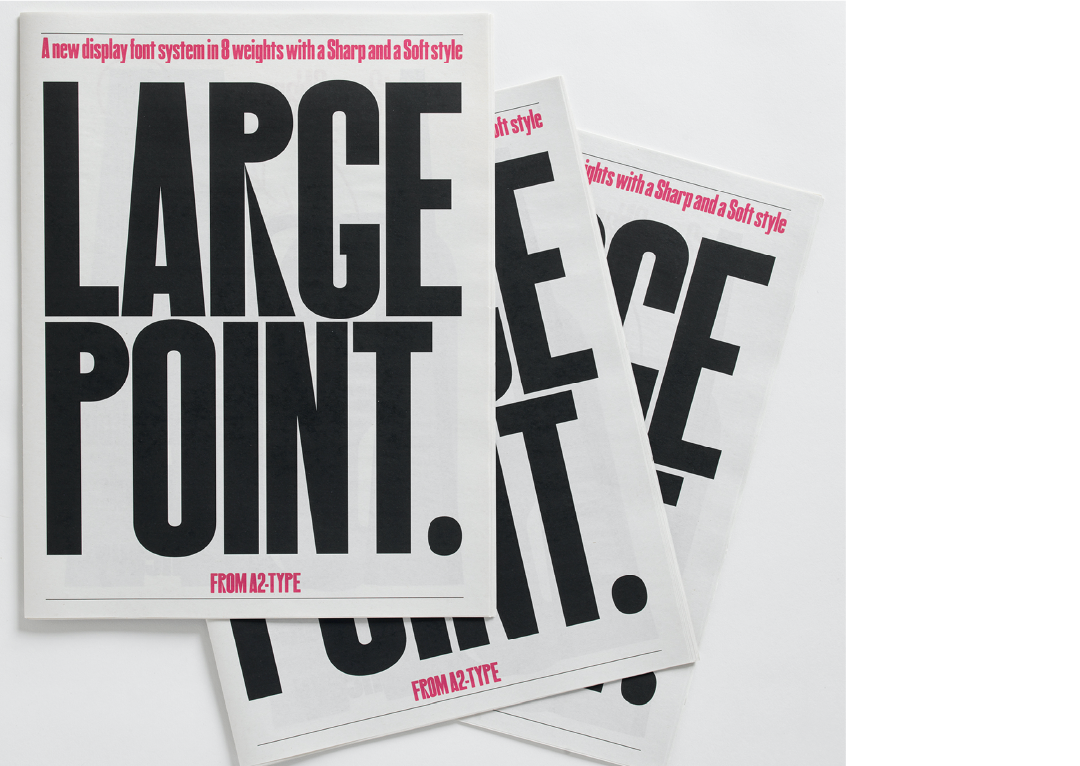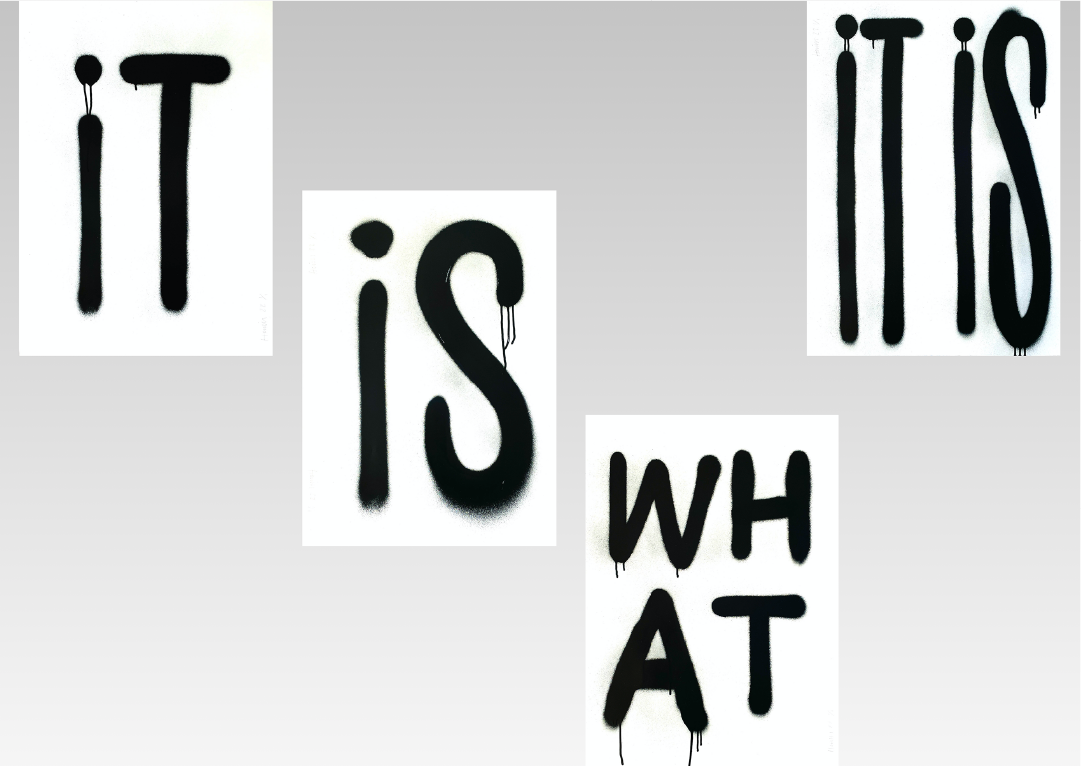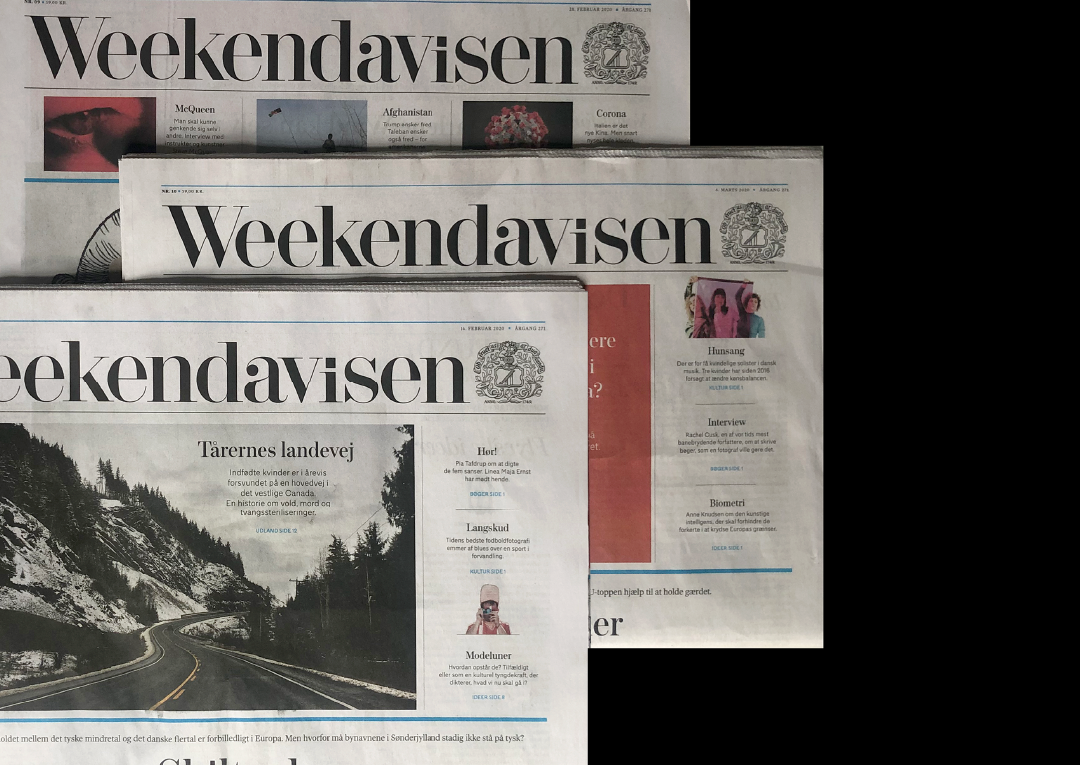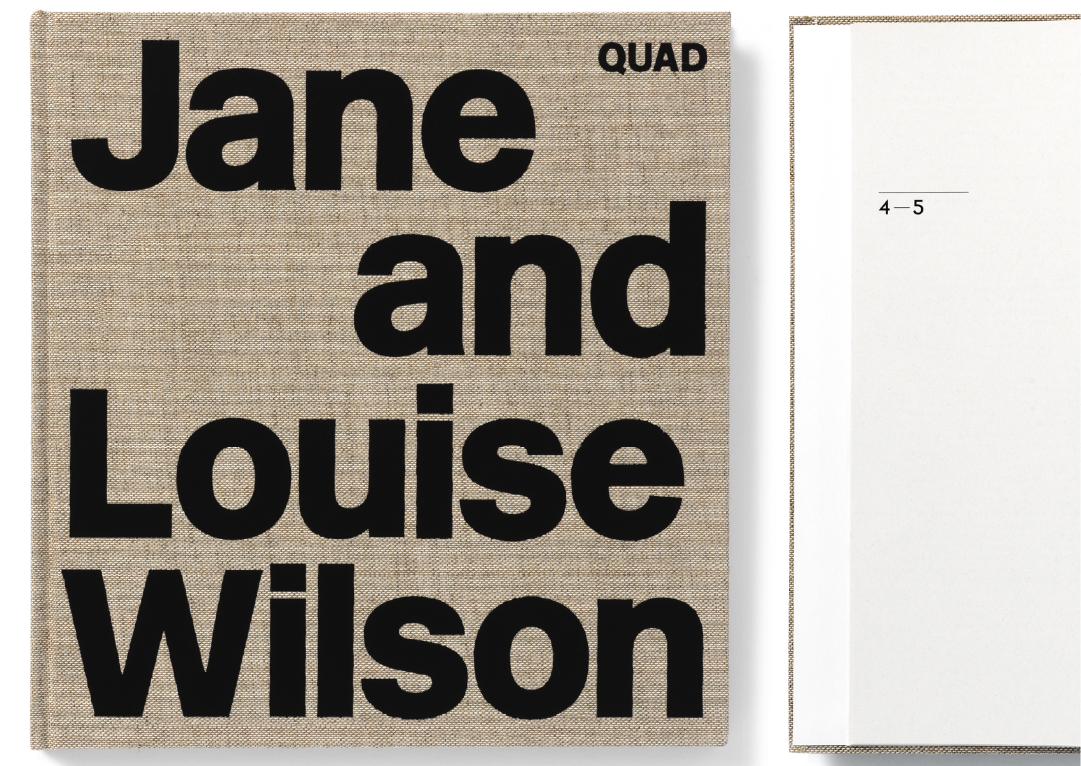
Kubel is the principal typeface designer at A2-TYPE; he is holds MA’s from Denmarks Design School and Royal College of Art as well as diplomas in typeface design from Cooper Union in NYC, Plantin Moretus Museum in Belgium and Reading University in UK. He taught typography at Royal College of Art for many years.
He is an expert in designing complex font systems with a contemporary feel and is highly specialised in creating typefaces for small point sizes and well as fonts for display use across all touchpoints.
Kubel is the recipient of the 3-year artist working grant from the Danish Art Foundation, KVE Memorial Award and is the current national president of AGI in UK.
A2-TYPE is an online foundry and type design consultancy founded by Scott Williams and Henrik Kubel (members of AGI, Alliance Graphique Internationale), dedicated to the craft of contemporary typeface design.
A2’s library of fonts now includes more than 100 unique typefaces (well over 1000 fonts) created over the past 20 years. Since launching A2-TYPE in 2010, the team have collaborated with leading design companies and global clients to create bespoke typefaces for brands across the world.
A2’s vast library of historical specimens are often a contributing source of inspiration and has inspired many of their designs such as English1766, A2-Mazarin, Regular, Microscopic, New Transport, Schwiss, Prismax and Foundation.
A2-TYPE has been recognised with typeface design awards from TDC in New York, Graphis, D&AD, and Tokyo Type Directors Club.
Selected clients: Moscow Metro, The New York Times magazine, LinkedIn, Weekendavisen, Philadelphia Enquirer, Network Rail (Great British Railways), Google Android, Instagram, Waze, The Athletic, Sella Bank, Quantas Airlines, Eurosport, CNN, Aperture Foundation, Samsung, Campbell’s and the UK Government.